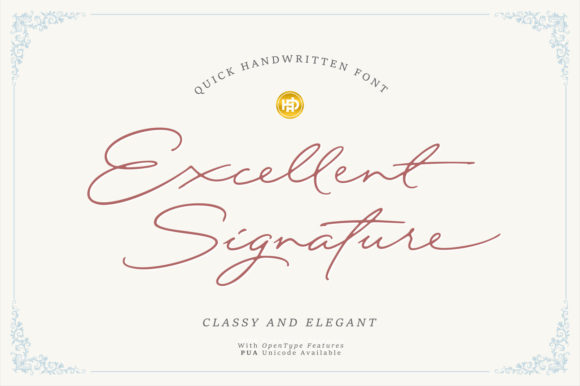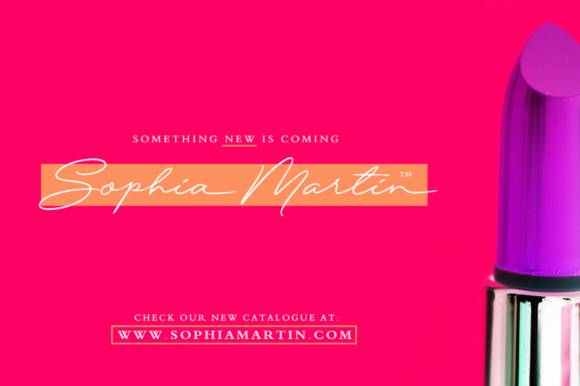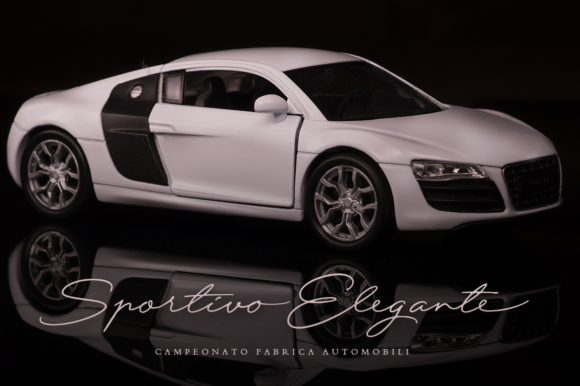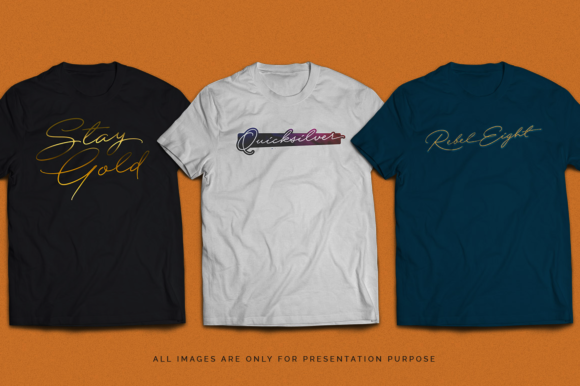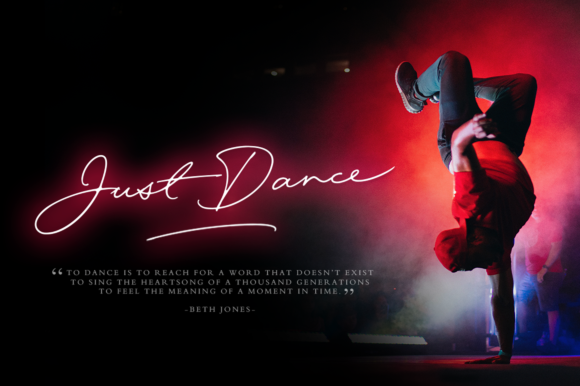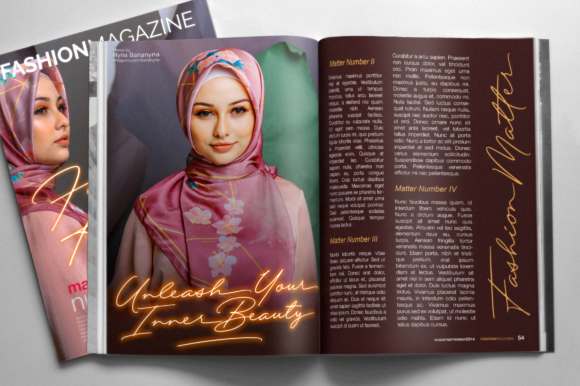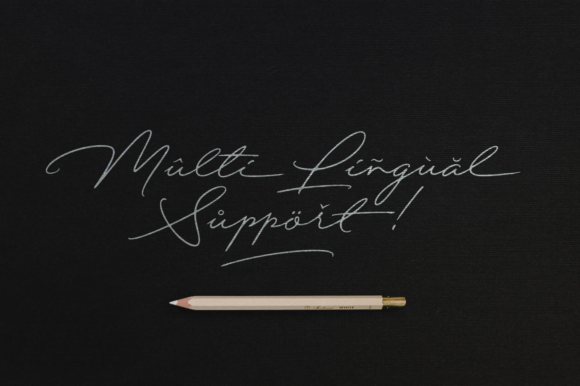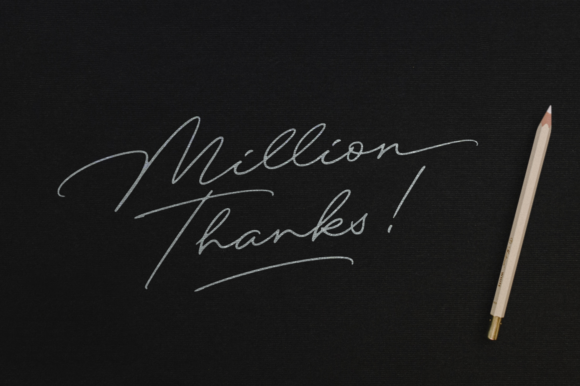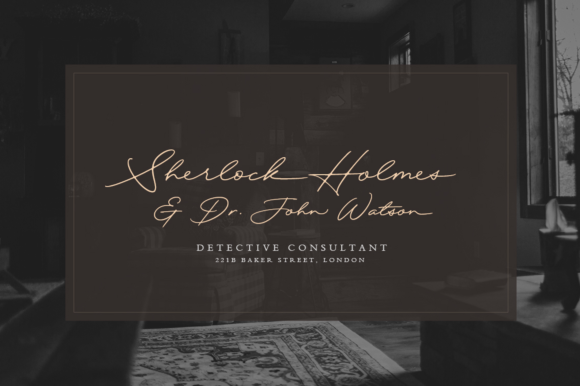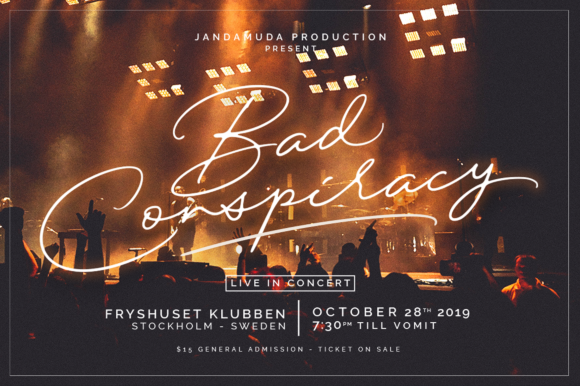
Excellent Signature Font
About Excellent Signature Font
Excellent Signature is a stunning and beautiful handwritten script with bold swashes. It will effortlessly elevate any design project with its unique charm.